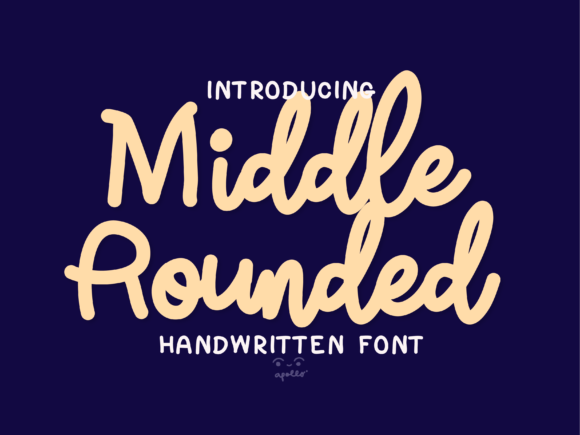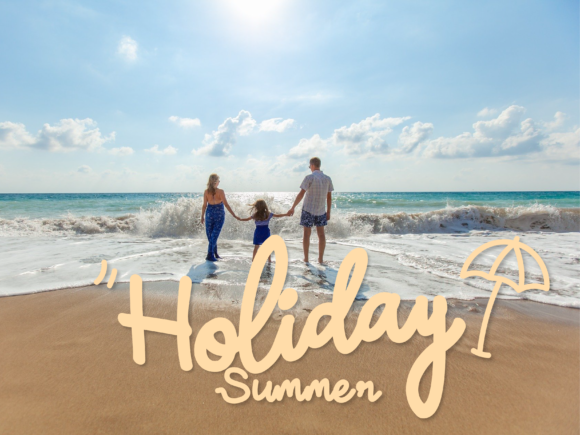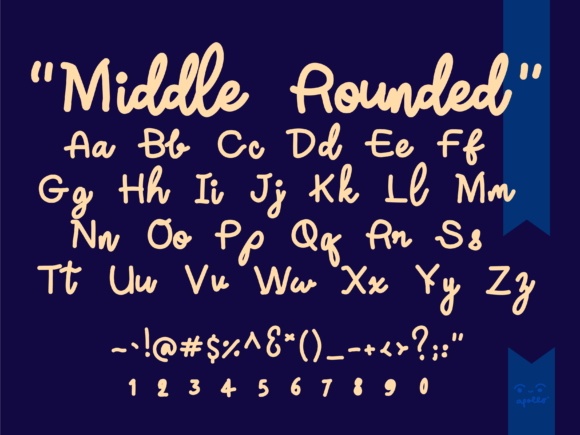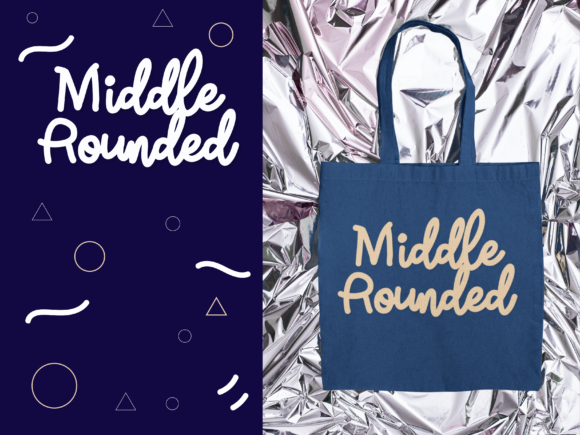
Middle Rounded Script Font
About Middle Rounded Script Font
Middle Rounded Script is a beautiful handwritten font. This versatile script font has a wide spectrum of applications ranging from greeting cards to headlines and is guaranteed to add a romantic feel to your next project.